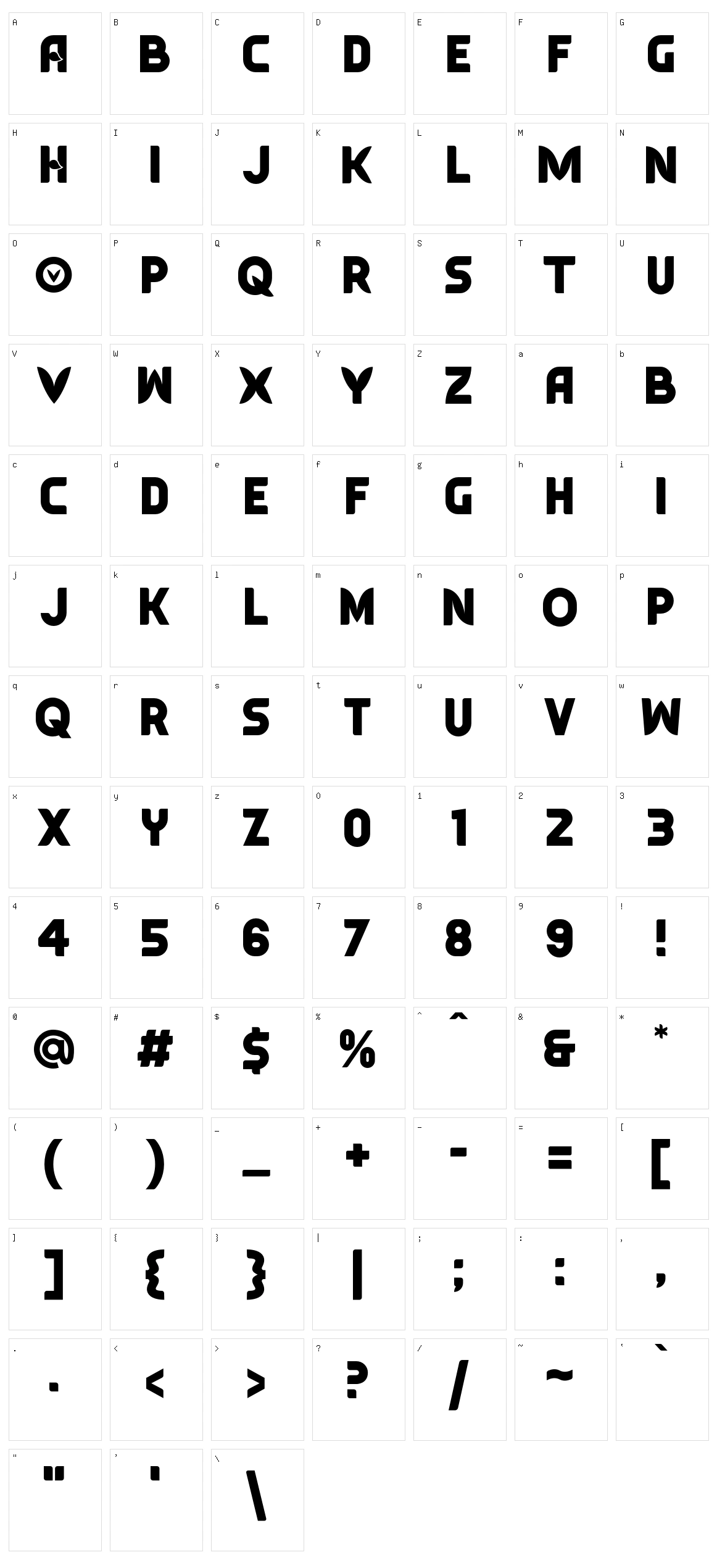
TYPESAUCE REGULAR V1.0.0 (OTF and TTF)
"Typesauce" is a typeface based on an original logo design by Evan Hogan|@CWCVille97 (https://booru.vineshroom.net/post/view/32299), made for Vinesauce, a Twitch.TV streaming group.
Additional letters provided by AlizarinRed|@TheAlizarinRed, from the "Vinemon: Sauce Edition" project (http://alizarin.red/).
Vinion mascot illustration provided by ShyGuyXXL|@ShyGuyXXL.
Vineshroom logo designed by Roris, vector provided by ZoubekTheInaccurate/Bigbeater Din.
UPPERCASE VARIANTS:
A, H, K, M, O, Q, R, T, V, W, X, Y, Z
SPECIAL CHARACTERS:
¦ (U+00A6) = Vineshroom "V"
§ (U+00A7) = Vinion mascot
¬ (U+00AC) = Vinesauce is HOPE PCRF logo
µ (U+00B5) = Vineshroom
COPYLEFT SYMBOL (U+1F12F)
- Changed uppercase "O" to reflect the changes of the new Vinemon: Sauce Edition logo;
- Added "Vinimon", mascot of Vinemon, as a symbol;
- Changed font name from "Vinefont" to "Typesauce";
- Added numbers;
- Additional symbols
- "Vinefont" font created;
- Added full base Latin alphabet w/ variants set to the uppercase letters;
- Added symbols.